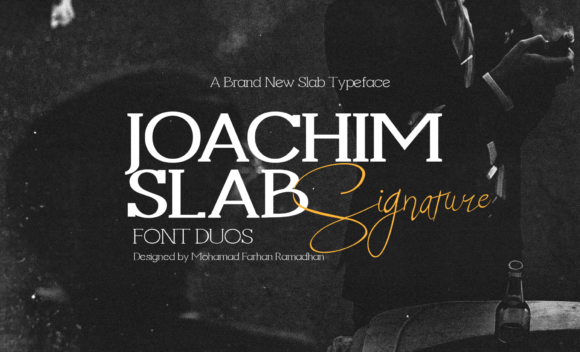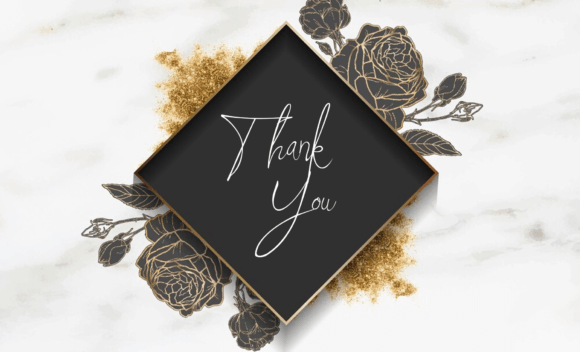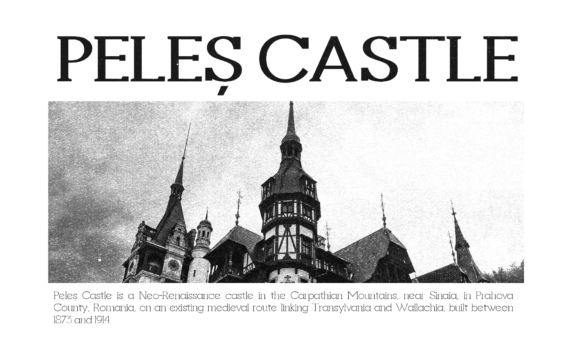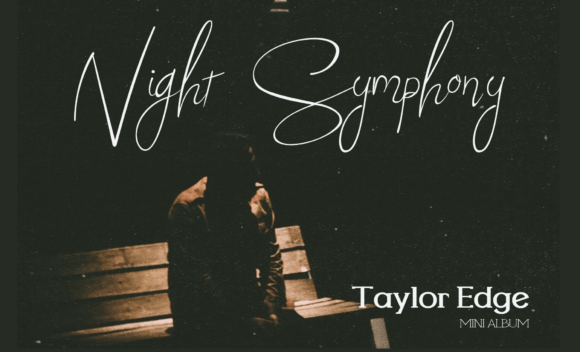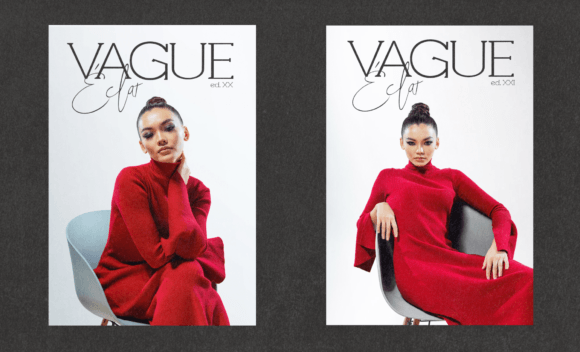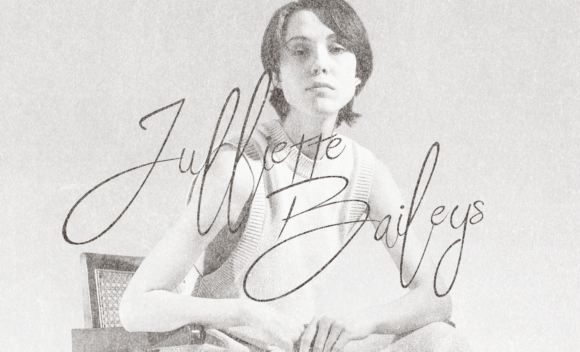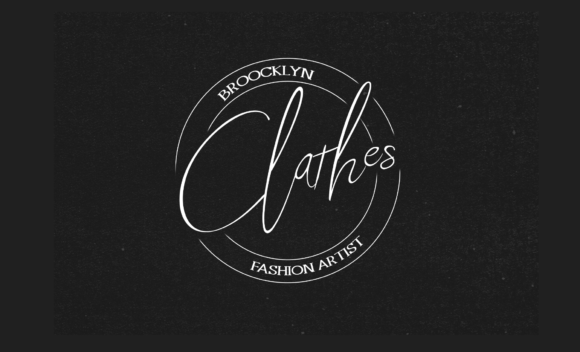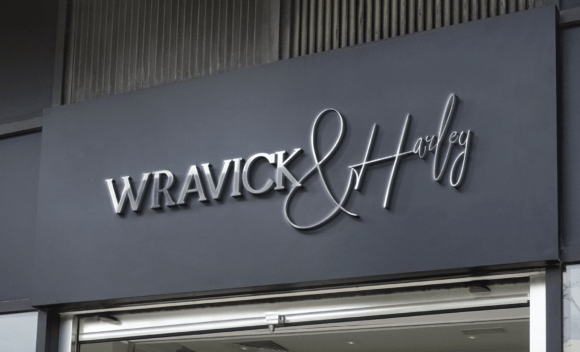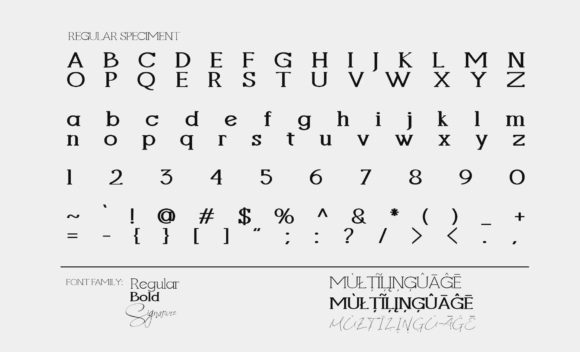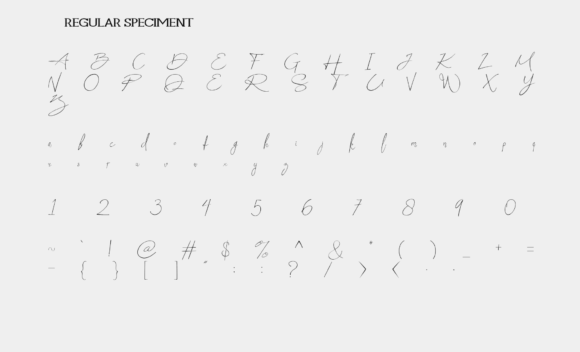
Joachim Slab Font
About Joachim Slab Font
Experience the sophistication and sublime aesthetic of Joachim Slab, a dual-style Typeface that effortlessly infuses modern elegance into every design. Known for its unique signature style, this font showcases an undeniable touch of handcrafted allure.
With distinct versions in regular, bold, and signature available, Joachim Slab’s versatility shines in a myriad of applications – from reinventing brand identities, gracing movie posters, turning book covers into conversation pieces, commanding attention on headlines to being the soul of album covers and logotypes. Immerse your designs in the refined dynamism characteristic of Joachim Slab and carve a unique visual identity that is bound to make a lasting impression.